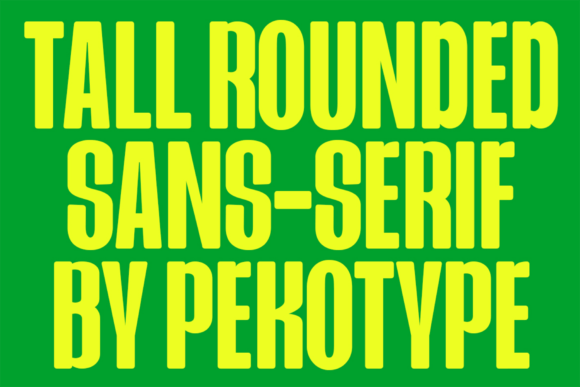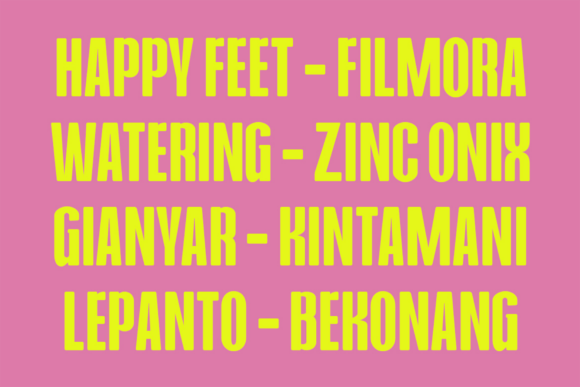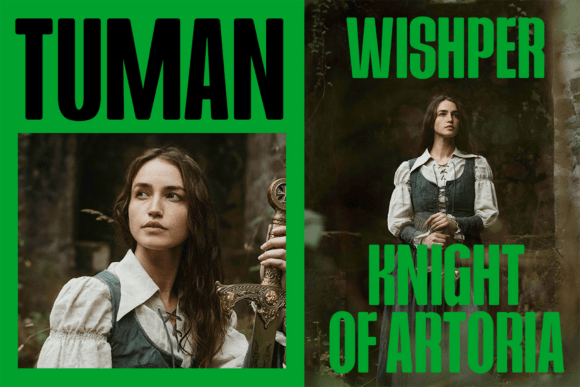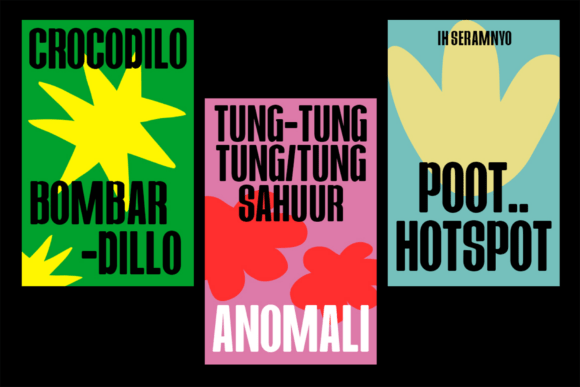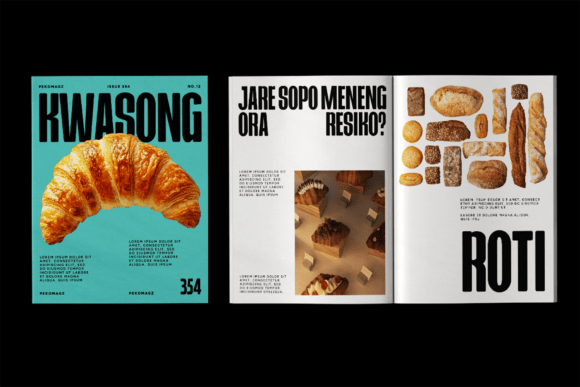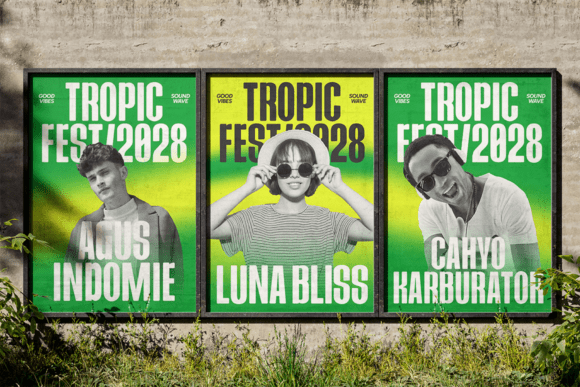
Introduction to Jairo Font
**JAIRO** – Tall, Bold & Modern Condensed Font for the New Era Introducing JAIRO, a tall, bold, condensed, rounded display font designed to make a powerful statement with minimal effort.
With its modern, clean, and minimalist aesthetic, JAIRO is built for today’s bold design trends—perfectly fitting for high-impact branding, eye-catching logos, film titles, editorial layouts, promotional materials, and social media content JAIRO combines sleek proportions with rounded corners, creating a font that feels confident yet friendly, strong yet stylish.